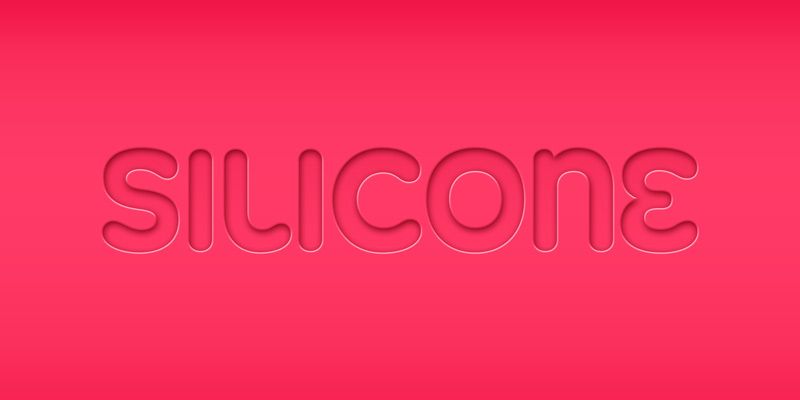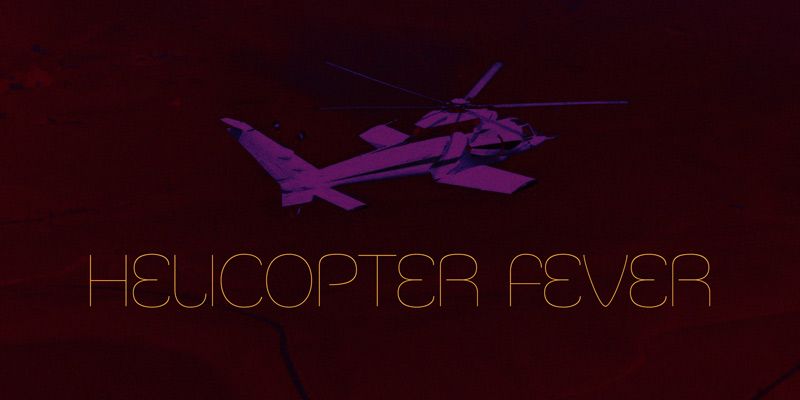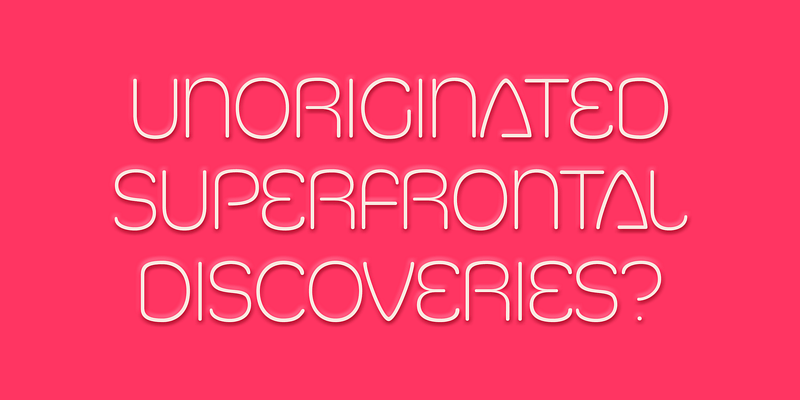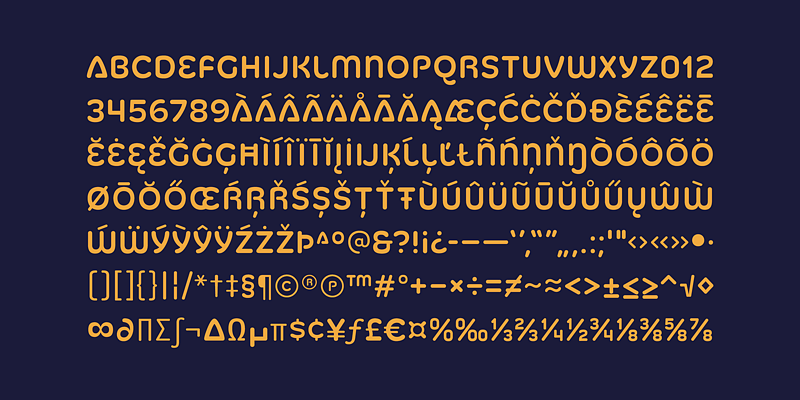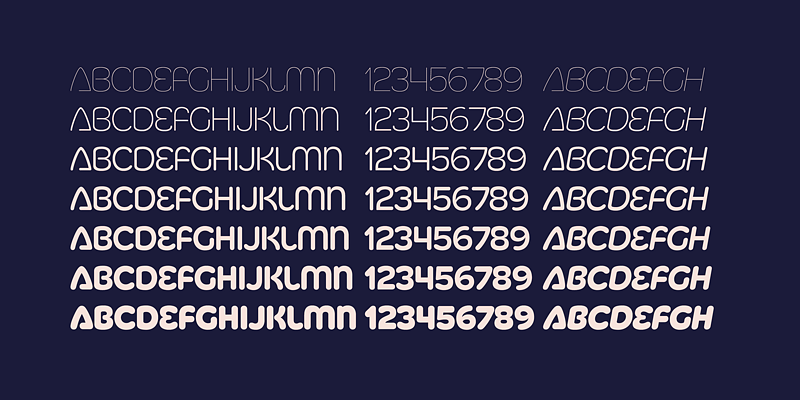
Silicone is a soft-edged display sans with rounded endings and shapes that seem molded rather than cut. Its friendliness is physical: the letters suggest a flexible object that can be held, pressed, or bent. That makes it useful for product names on protective cases, wristbands, kitchenware, wearables, and packaging for tactile consumer goods. It can also soften technology graphics without turning them into handwriting. Five weights range from UltraLight through Bold with matching italics, allowing a related set of names and headings to move between airy and more substantial expressions.